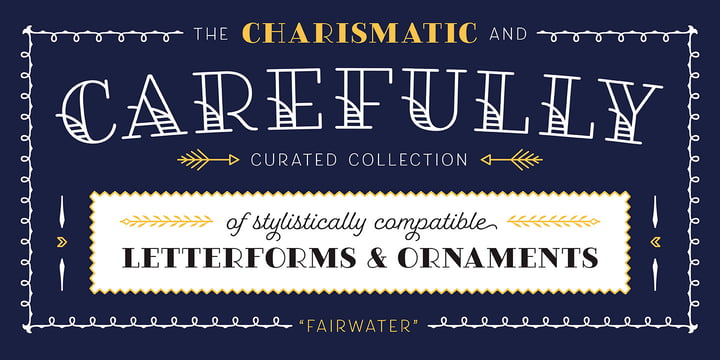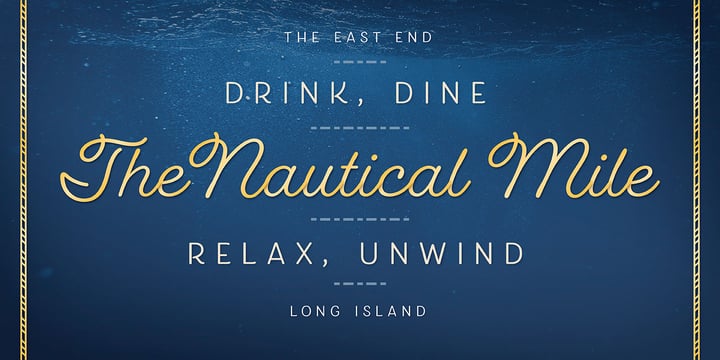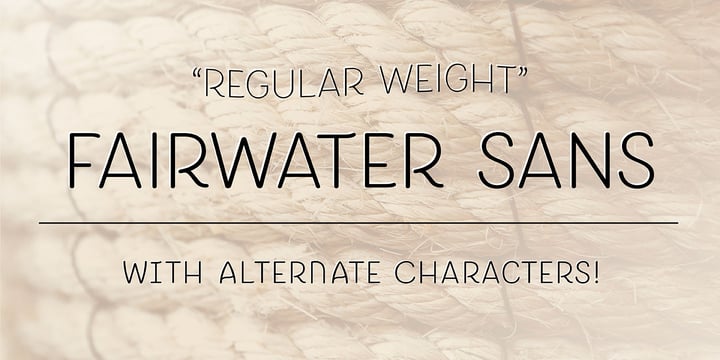
Fairwater
Fairwater by Laura Worthington
Fairwater Font Family was designed by Laura Worthington, Dai Foldes and published by Laura Worthington. Fairwater contains 11 styles and family package options. More about this family
About Fairwater Font Family
Fairwater’s aesthetic derives from the cursive handwriting styles popularized in the early to mid-1900s, the simplified, forgiving letterforms of tattoo lettering – and the pictorial themes that informed early-to-mid 20th-century naval tattoos. The Fairwater family includes a script and sans face in three weights, four decorative serif faces and an ornamental font: DIY Lines. As with many of my fonts, I couldn’t resist adding a plethora of 465 swashes and alternates to the script version, that include ending forms on all letters, 34 beginning and isolated letters, an unconnected version and contextual alternates. Fairwater also includes a powerful decorative font entitled DIY Lines: 250 ornamental characters of ships, anchors, oars, knots, rope, botanicals, diamonds, arrows and more. With strokes and proportions that perfectly complement the type. See what’s included! http://bit.ly/2cJMUoe These fonts have been specially coded for access of all the swashes, alternates and ornaments without the need for professional design software! Info and instructions here: http://lauraworthingtontype.com/faqs/